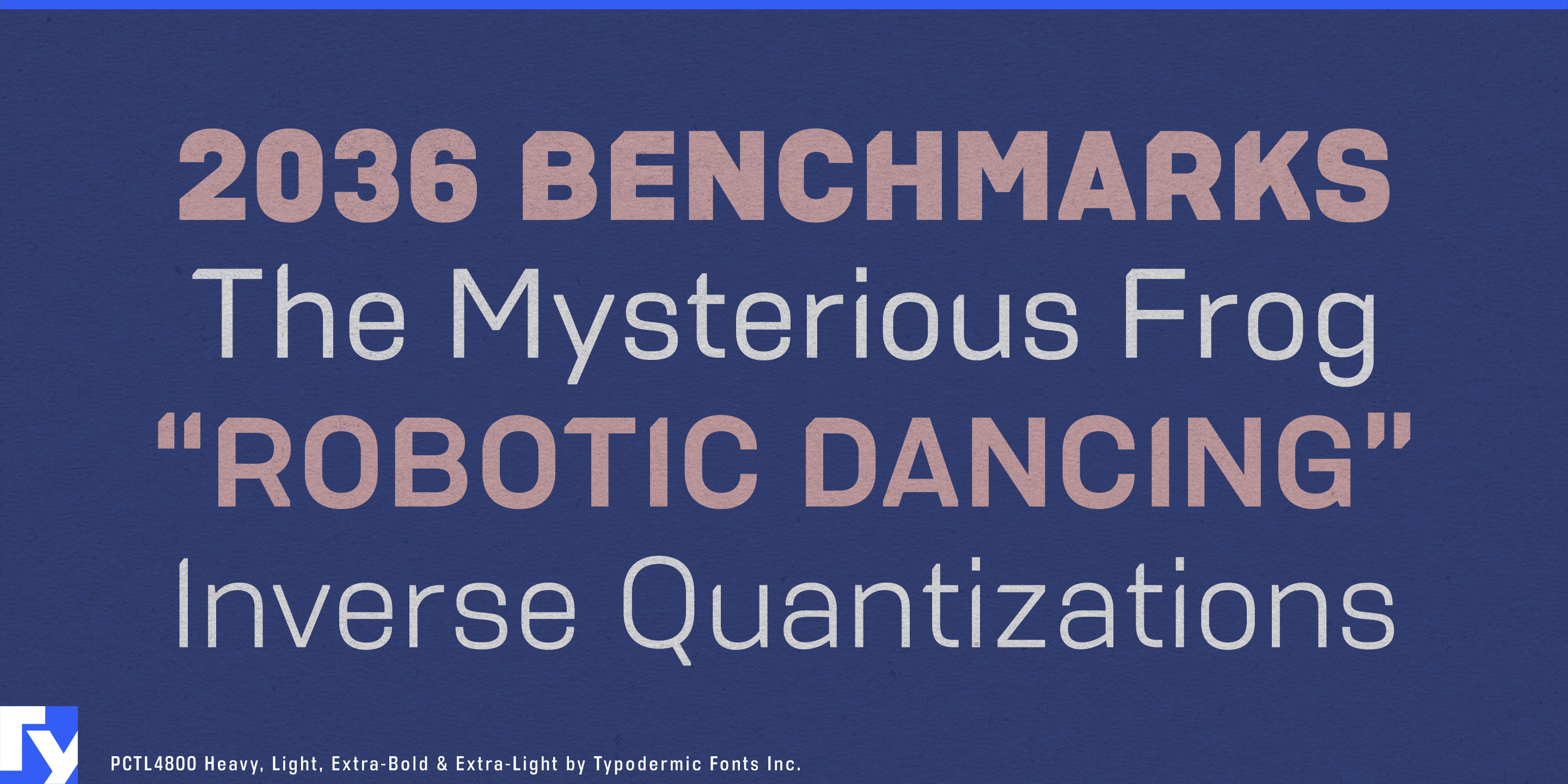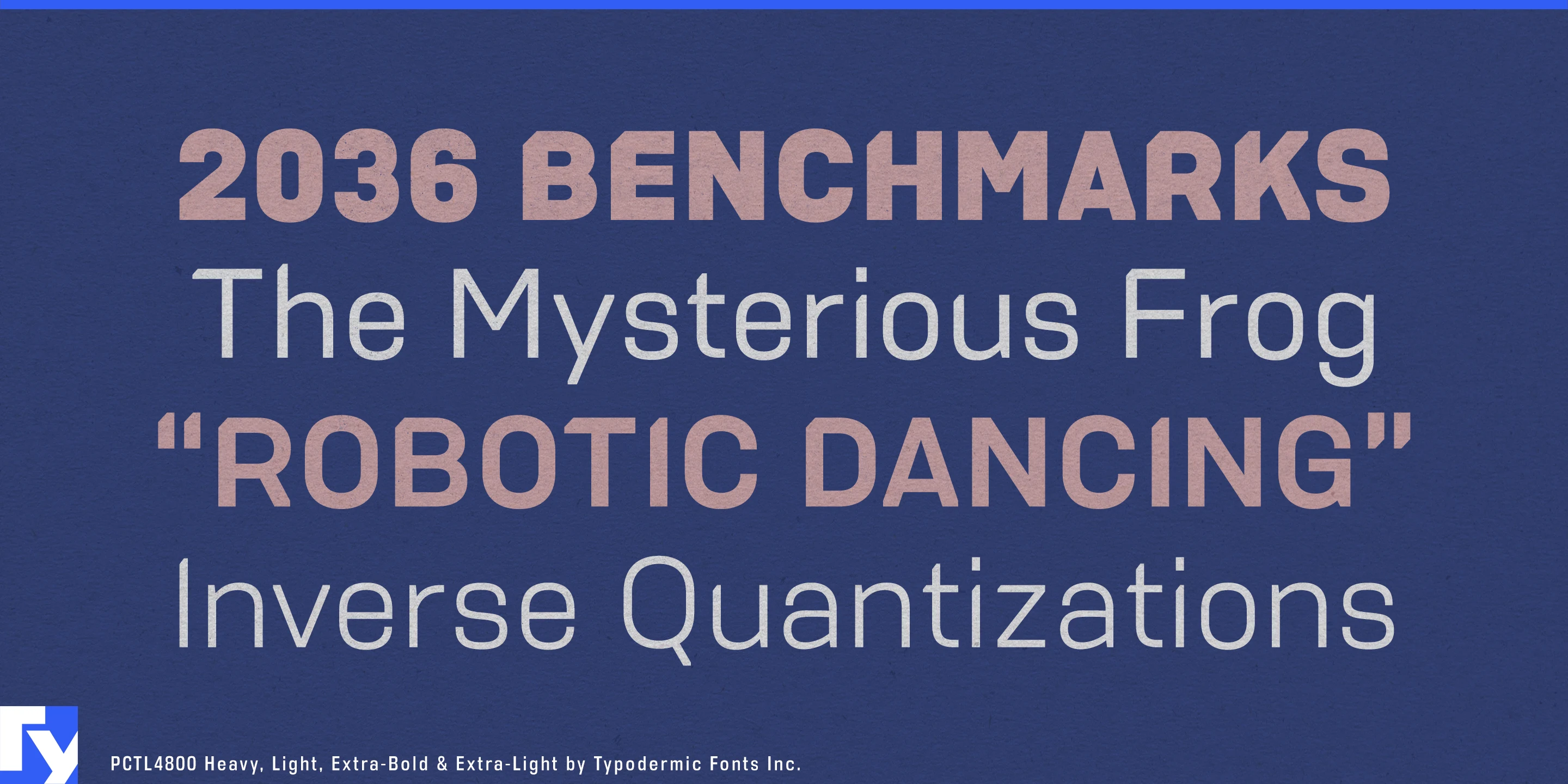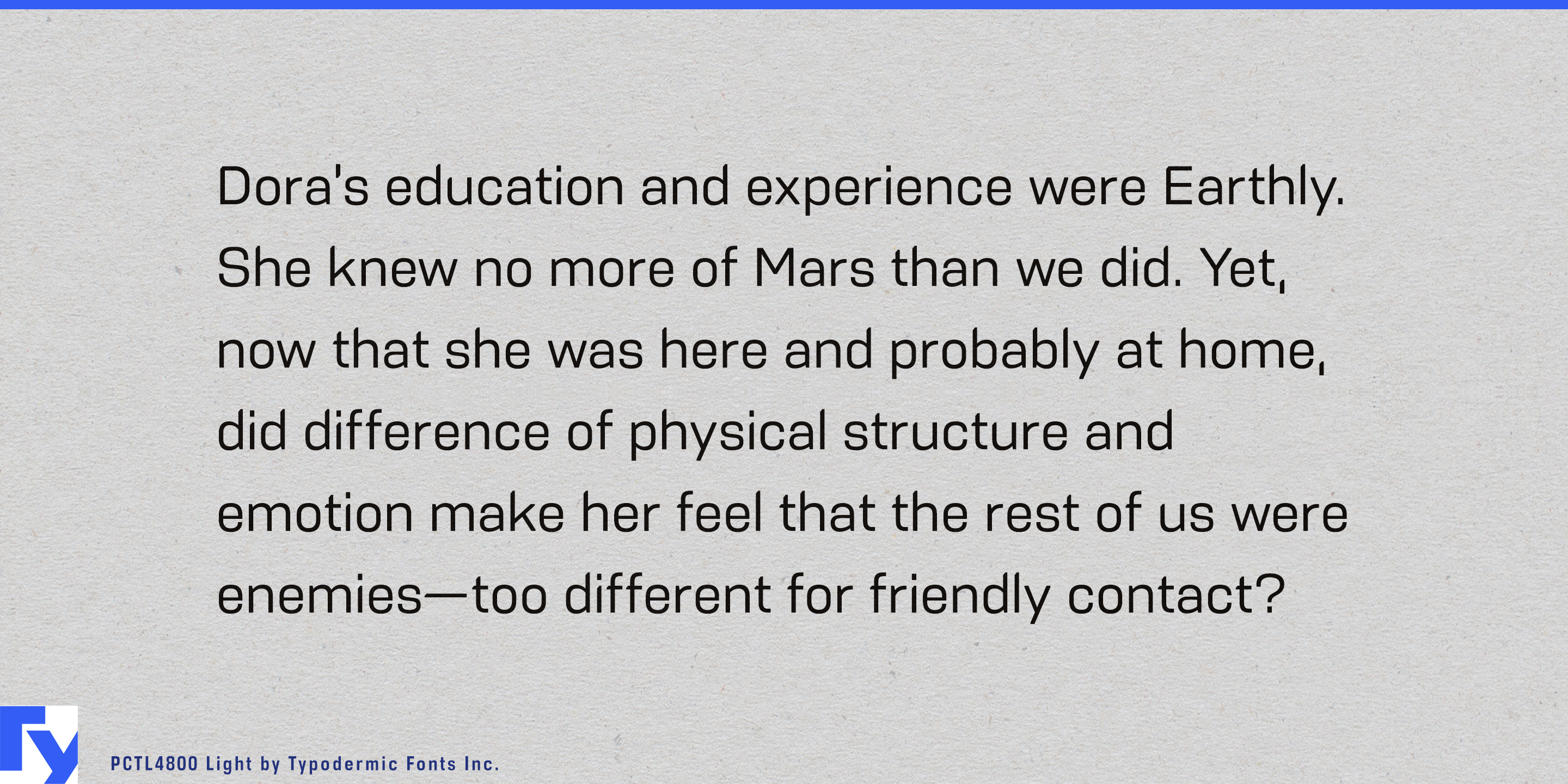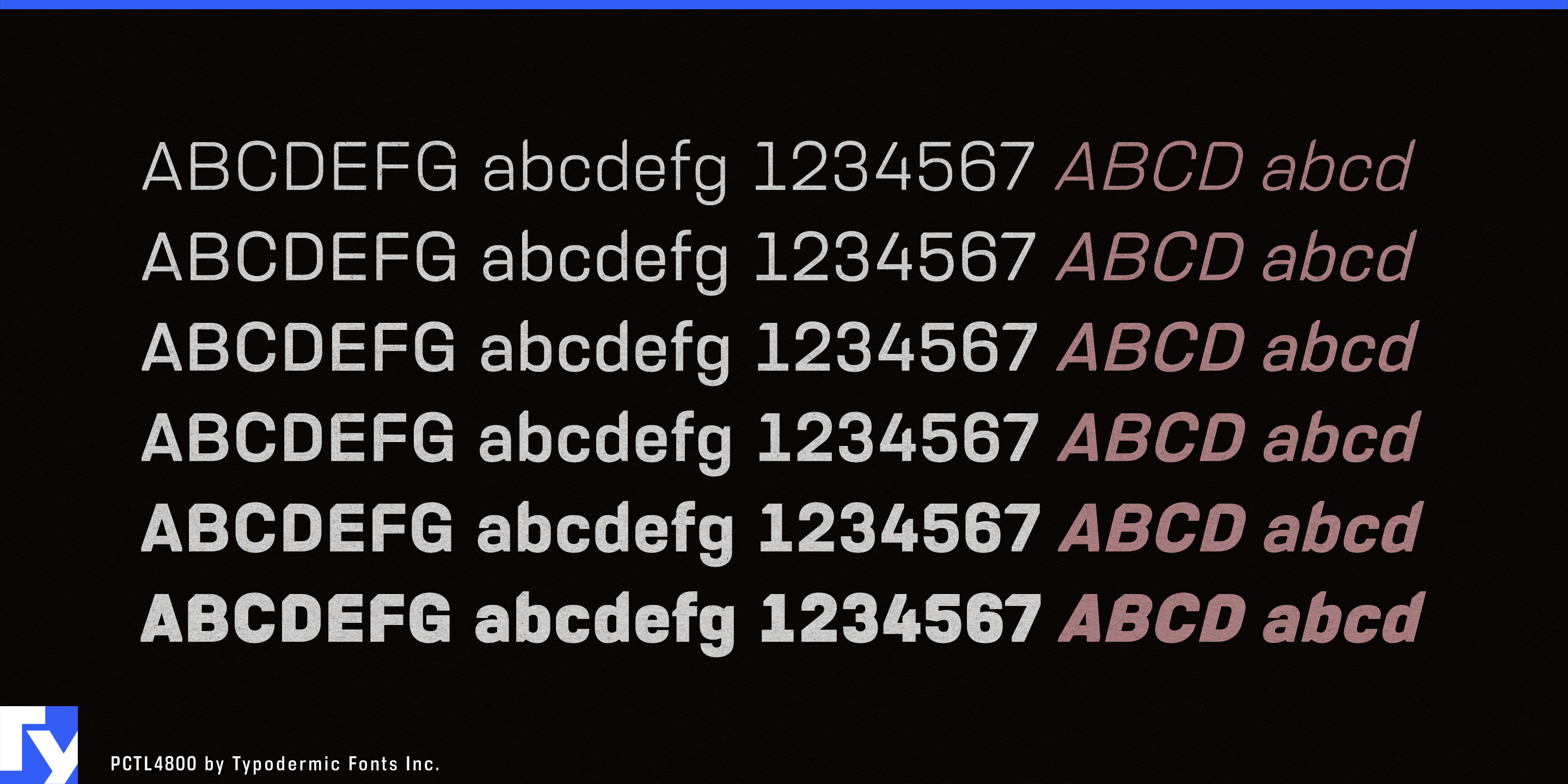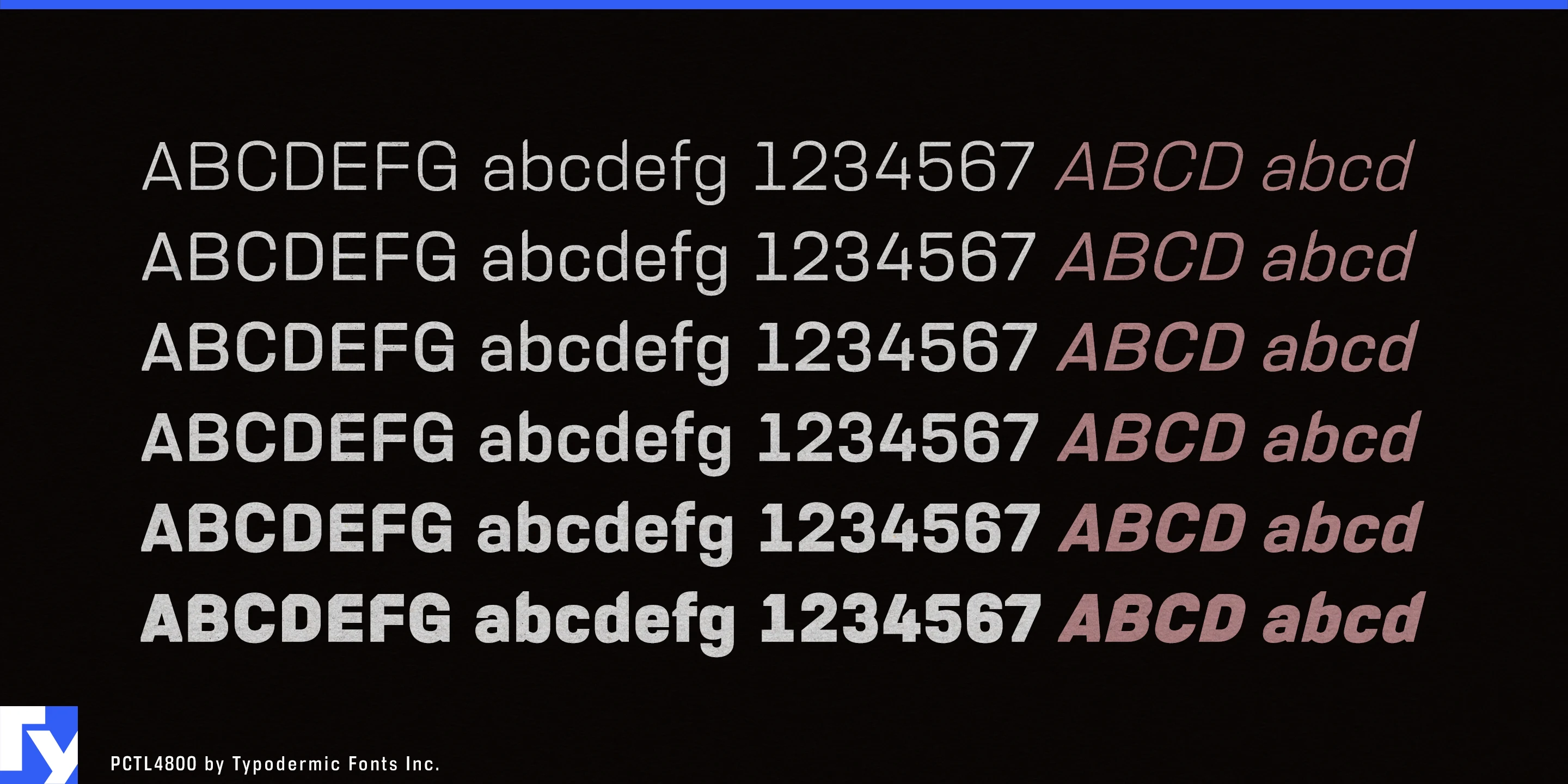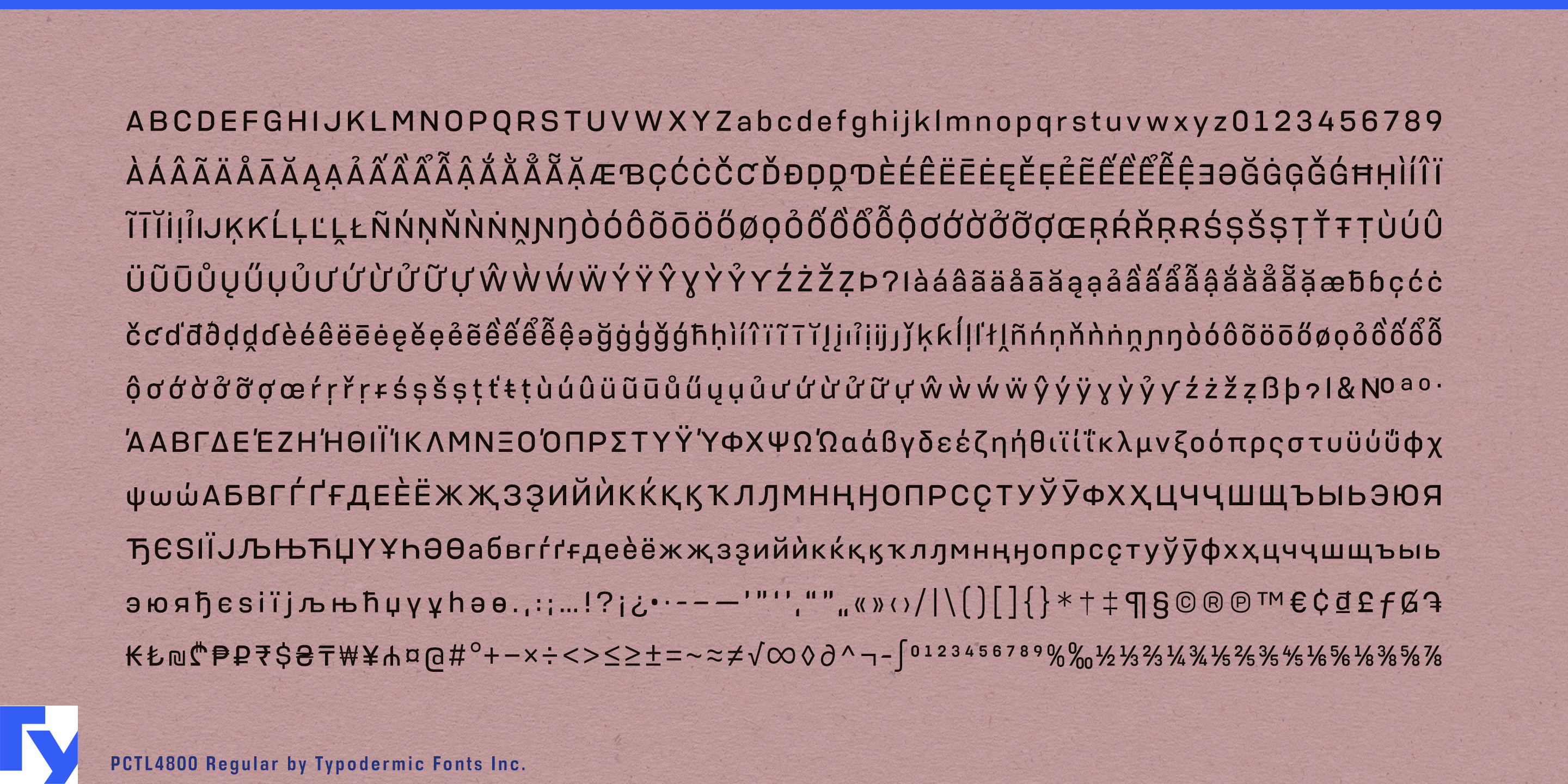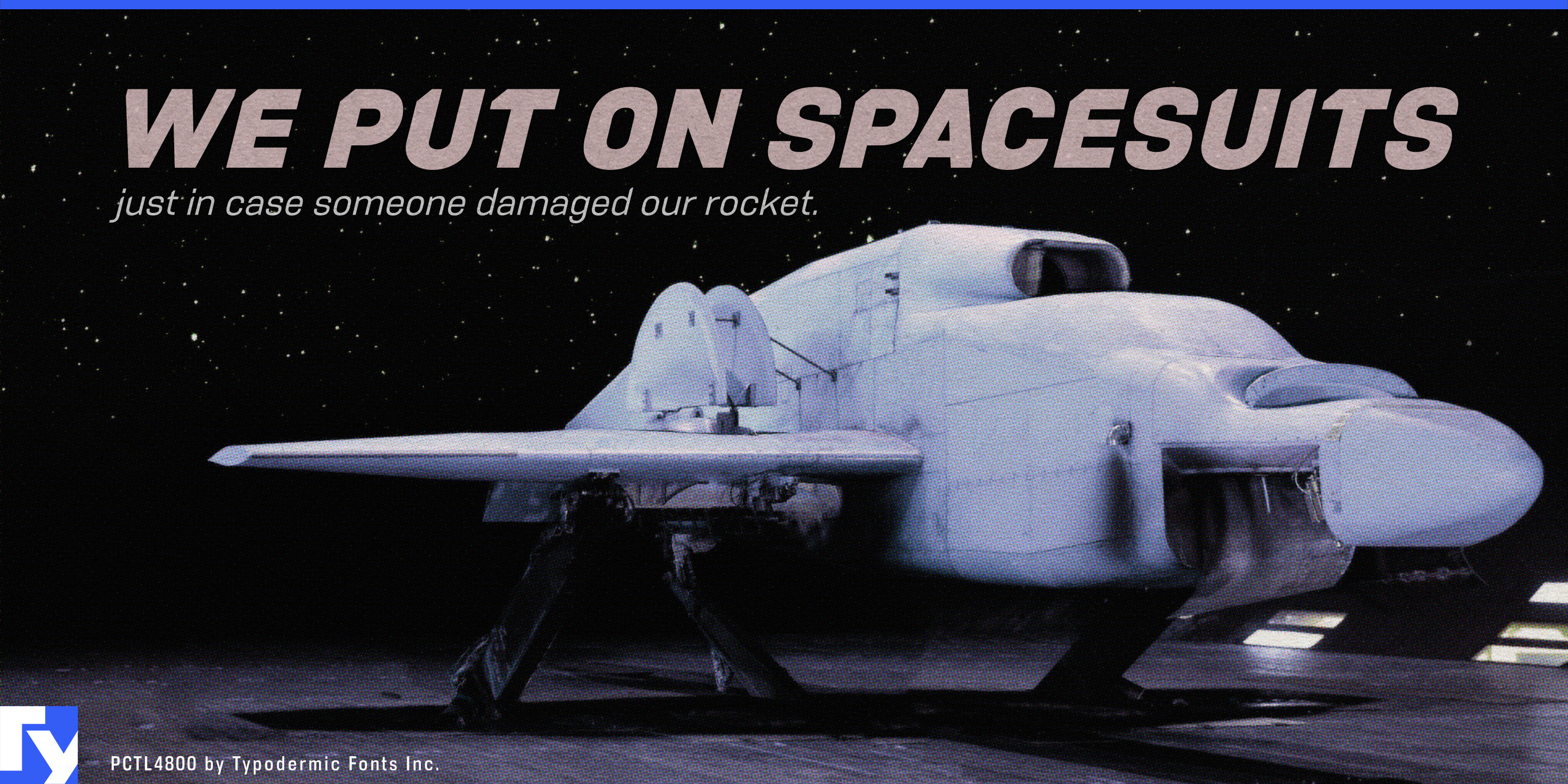
Pctl4800
Pctl4800 began as a custom typeface for a science-fiction video game, with a brief to carry DIN’s disciplined utility into a more futuristic, engineered setting. Its squared forms and abrupt transitions move beyond DIN’s geometric neutrality toward contemporary industrial design, recalling instrument housings, molded components, control surfaces and replaceable cartridges. The result is orderly enough for information, but hard-edged enough to establish a distinct technical environment.
At selected corners, small index cuts echo the orientation marks found on memory cards and other technical components. They seem less like ornament than traces of a proprietary manufacturing standard. Their function is never explained, which is precisely what makes them useful: the letters appear to belong to a system whose rules already exist.
This combination of scientific order and industrial specificity makes Pctl4800 particularly effective for pharmaceutical and biotechnology products. On specialty-drug cartons, diagnostic-test kits, laboratory reagents and clinical-trial materials, it can give product names, formulation codes, dosage strengths and information headings a recognizable technical language. It communicates clinical precision without disappearing into the anonymity of a conventional healthcare sans.
The same visual logic extends to laboratory instruments, synthesizer control panels, robotics catalogs, drone-controller overlays, 3D-printer packaging and field-service manuals. Model names, equipment categories, specifications, labels and procedural text can all appear to originate within the same designed system.
Pctl4800 is equally useful inside speculative worlds. Spacecraft maintenance labels, airlock instructions, equipment inventories, mission dossiers, cockpit displays and research-station signs benefit from lettering that appears to belong to an established infrastructure. It can carry a cinematic title, but its more unusual strength lies in the ordinary typography behind that title: the warnings, status messages, component numbers and operating instructions that make fictional technology feel real.
Pctl9600 uses the same underlying industrial construction without the indexed corners, providing a cleaner alternative. Pctl has no inherent meaning, while 4800 was loosely inspired by the model-number language of old Atari consoles. The name sounds like a piece of equipment whose purpose everyone was expected to understand.